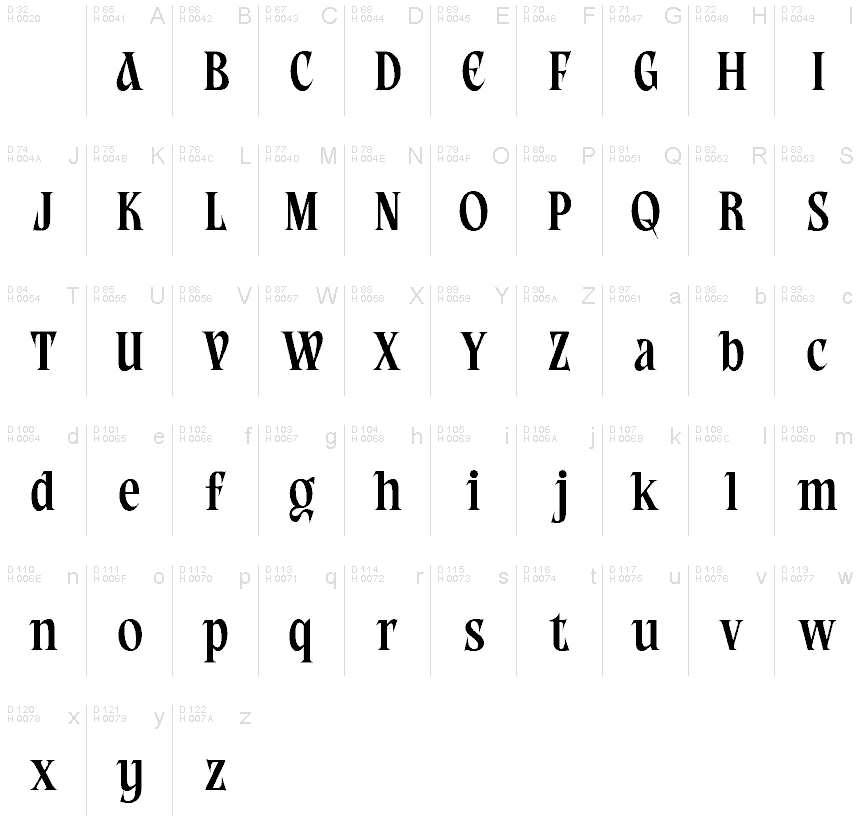
CS Angle Regular Demo
CS Angle font by Craft Supply Co. is a historical-themed serif condensed font with distinct curves and a sturdy classic design style. This display typeface showcases an elegant touch in each character, often borrowed from serif influences for an old-fashioned resonance.